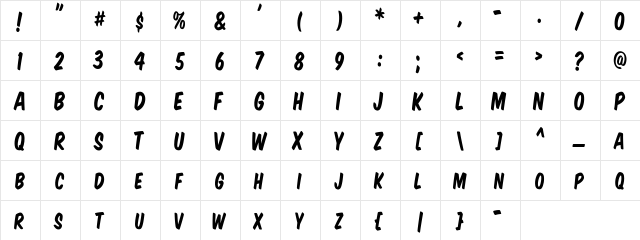
VTCSuperMarketSaleSC SmallCaps
Design Context for VTCSuperMarketSaleSC Typeface
VTCSuperMarketSaleSC is a composed and adaptable typeface that performs quietly and consistently across a wide range of design contexts.